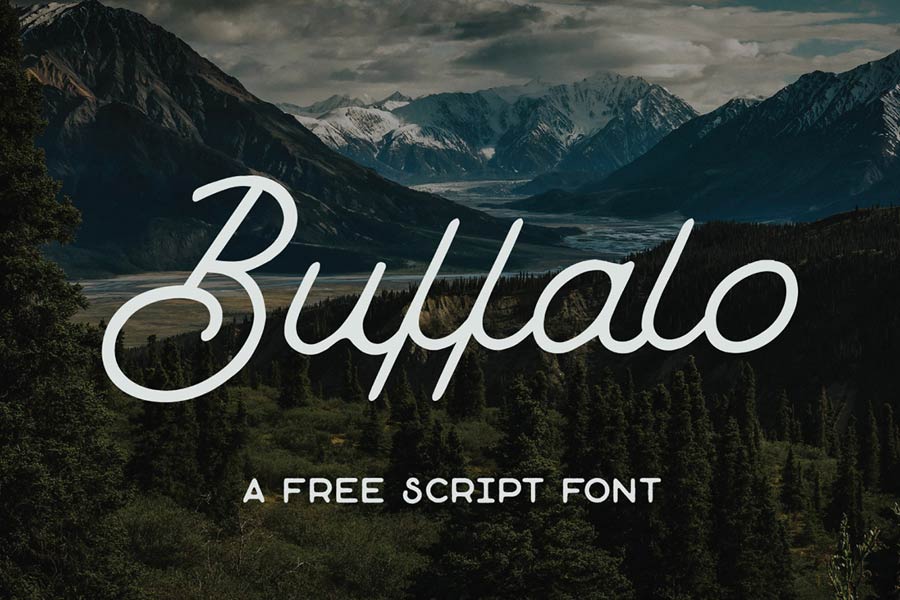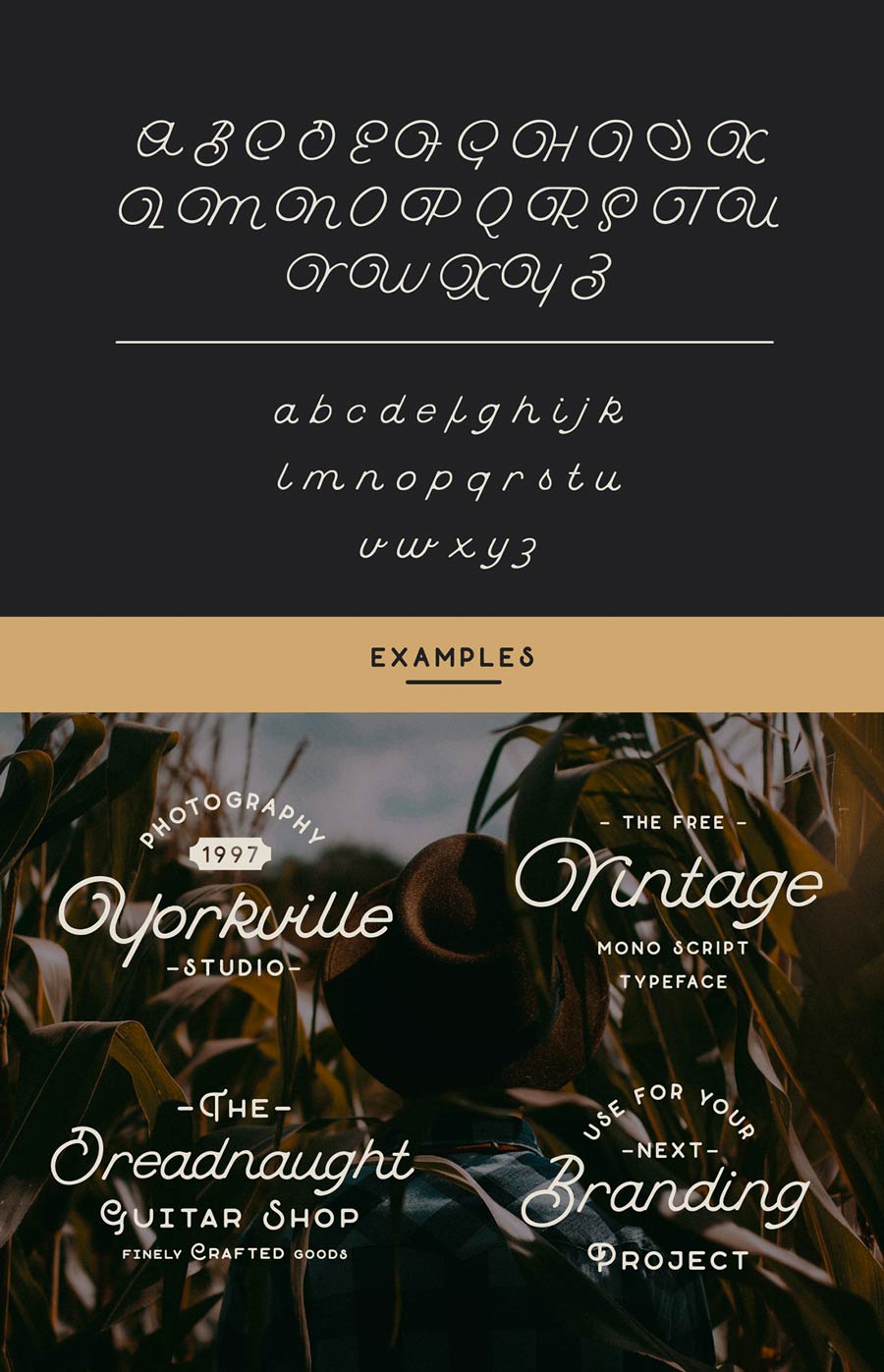
Buffalo is a loopy & quirky monoline script font from Hustle Supply Co. This font features fluidic with elaborately designed strokes, is suitable for logos and labels that spell vintage. Throw it with a rounded sans serif and you will find yourself a hippie, vintage logo.